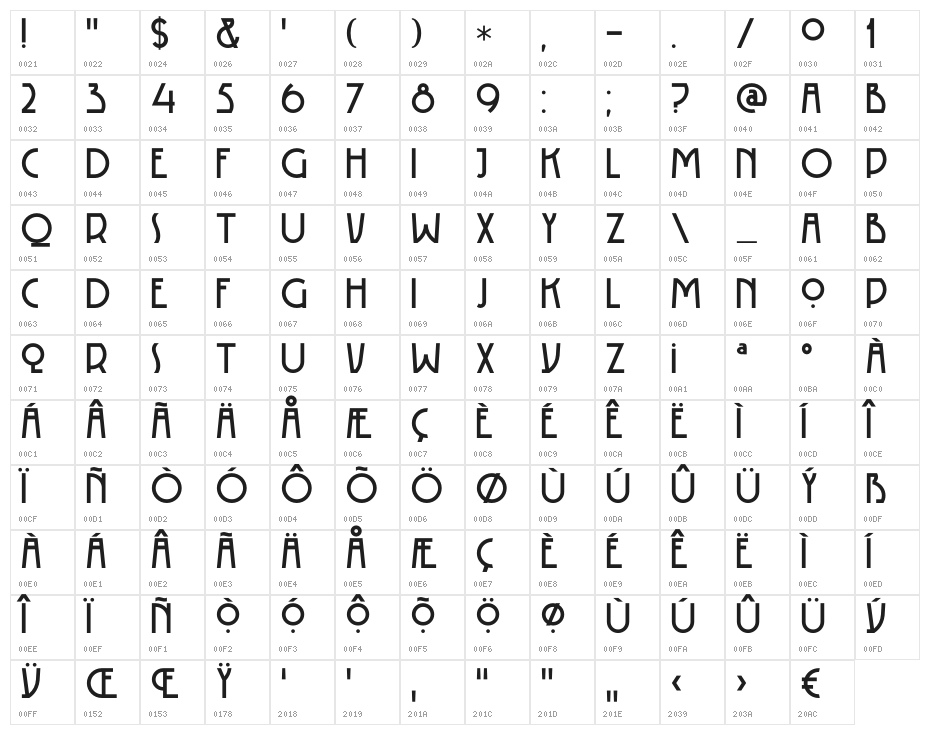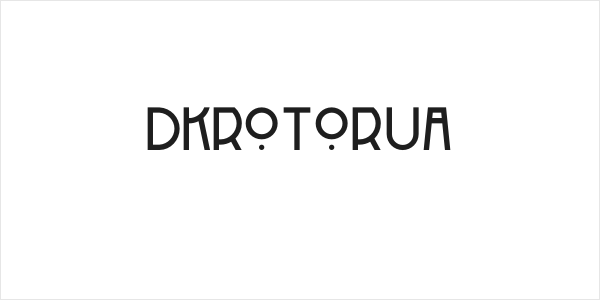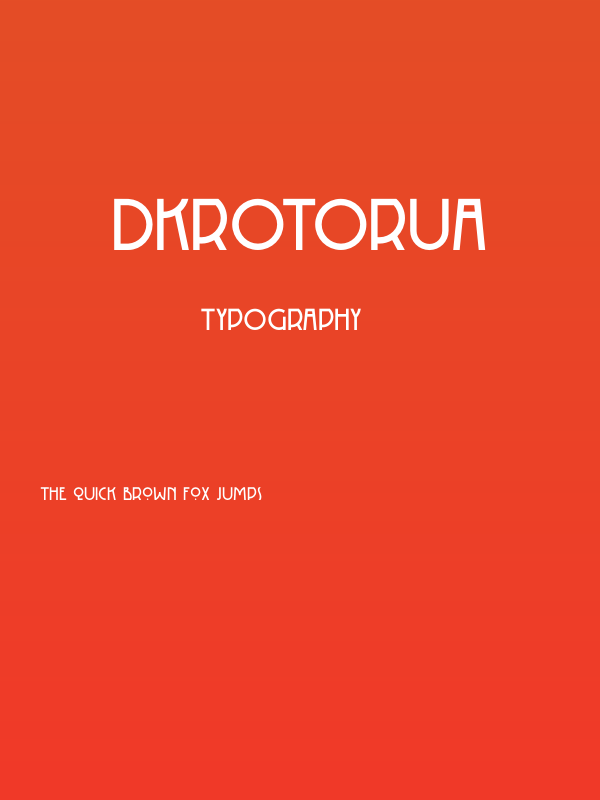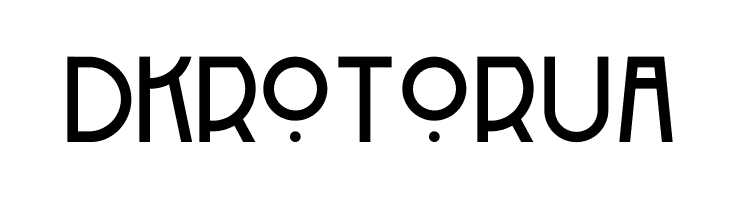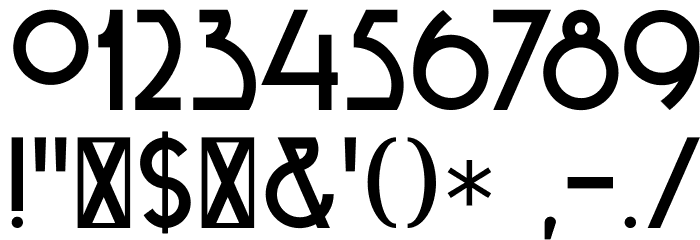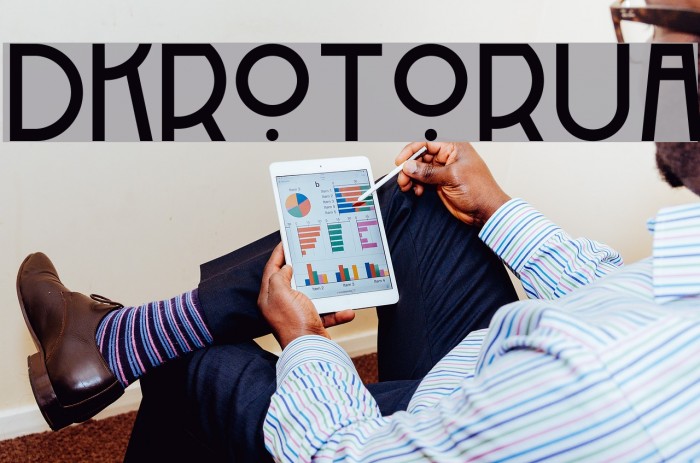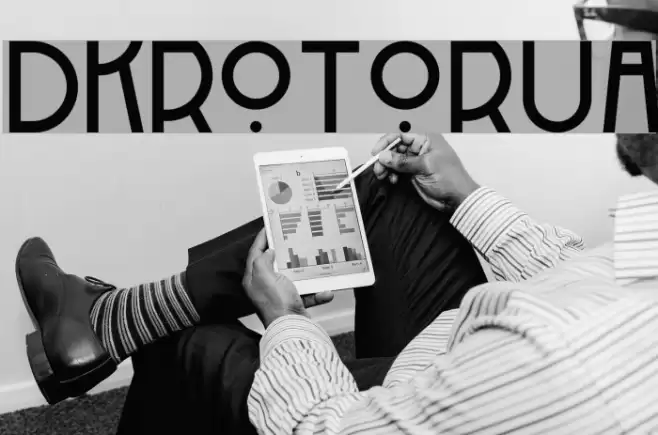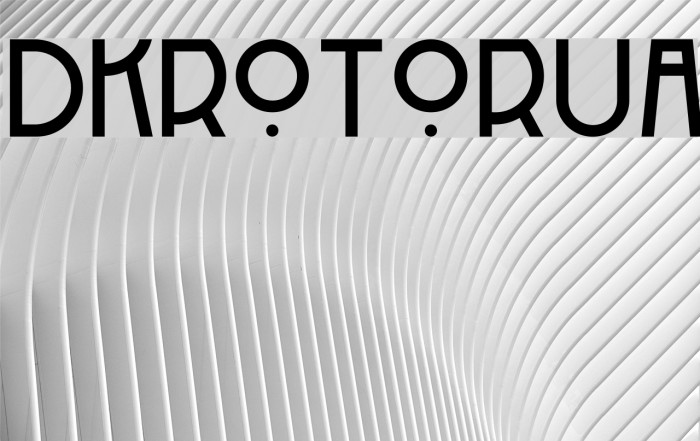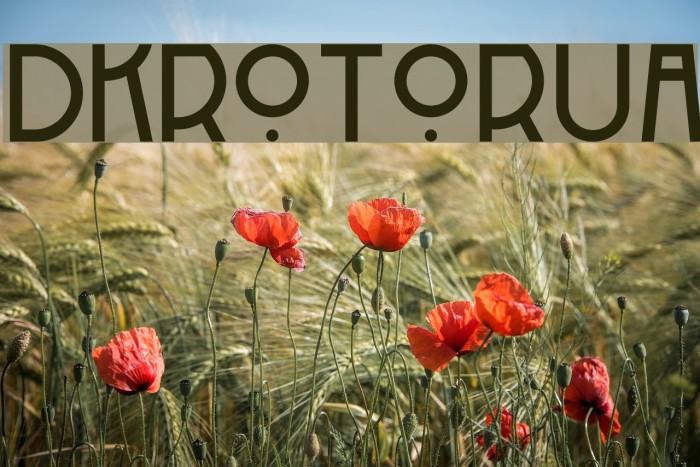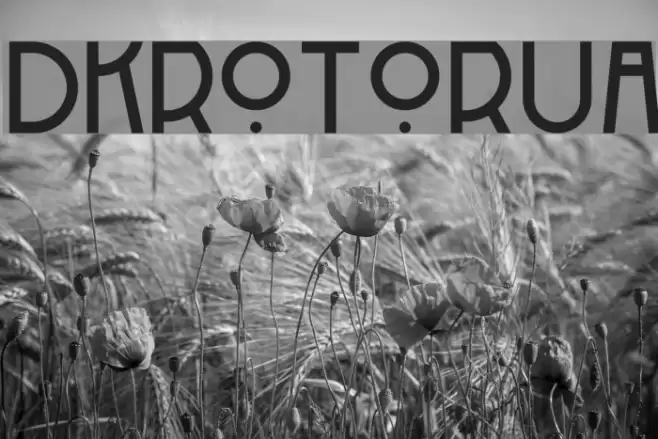
DKRotorua Font
DKRotorua Description
This font features a bold and geometric design with a strong Art Deco influence. The uppercase letters are characterized by their tall, narrow forms and sharp angles, giving them a sleek and modern appearance. The lowercase letters maintain the geometric style, with some unique variations that add a touch of elegance and sophistication. The numerals are consistent with the overall design, featuring clean lines and a balanced structure. Special characters are crafted with the same attention to detail, ensuring a cohesive look across all elements. The font's distinct style makes it suitable for projects that require a touch of vintage flair combined with modern aesthetics.
| Overall Style | Modern, Vintage |
| Proposed Projects | Ideal for branding, poster design, packaging, and any project seeking a blend of modern and vintage aesthetics. |